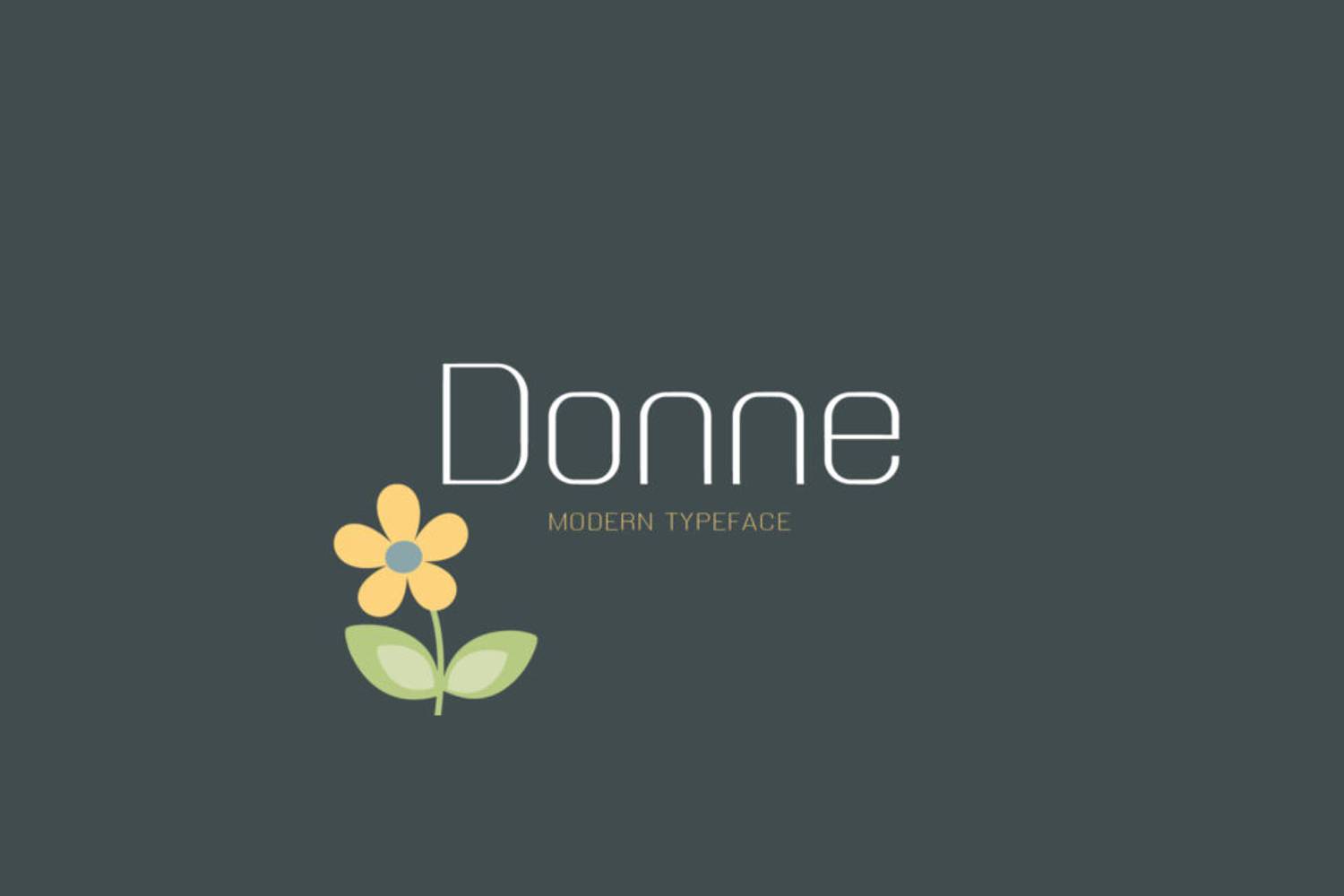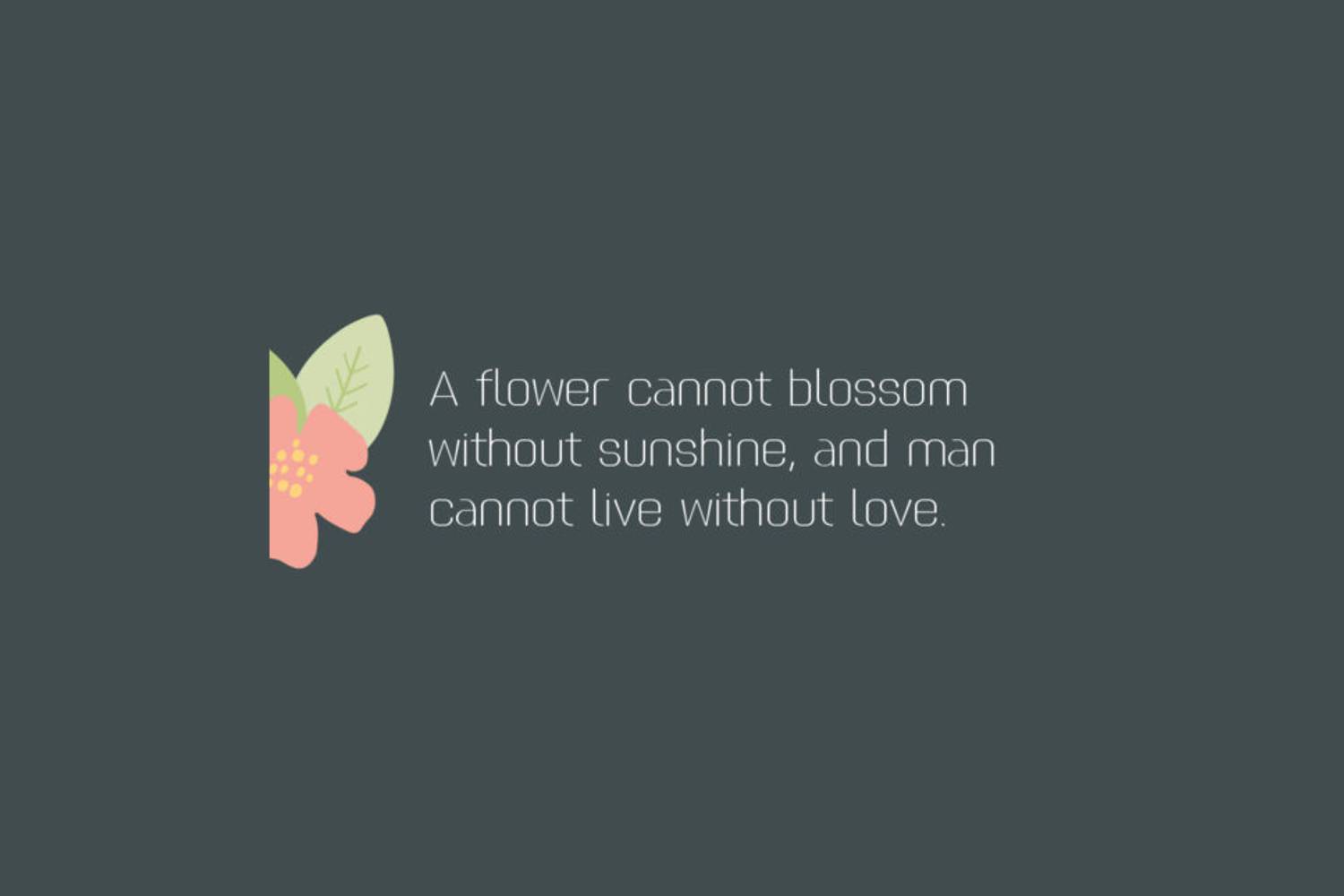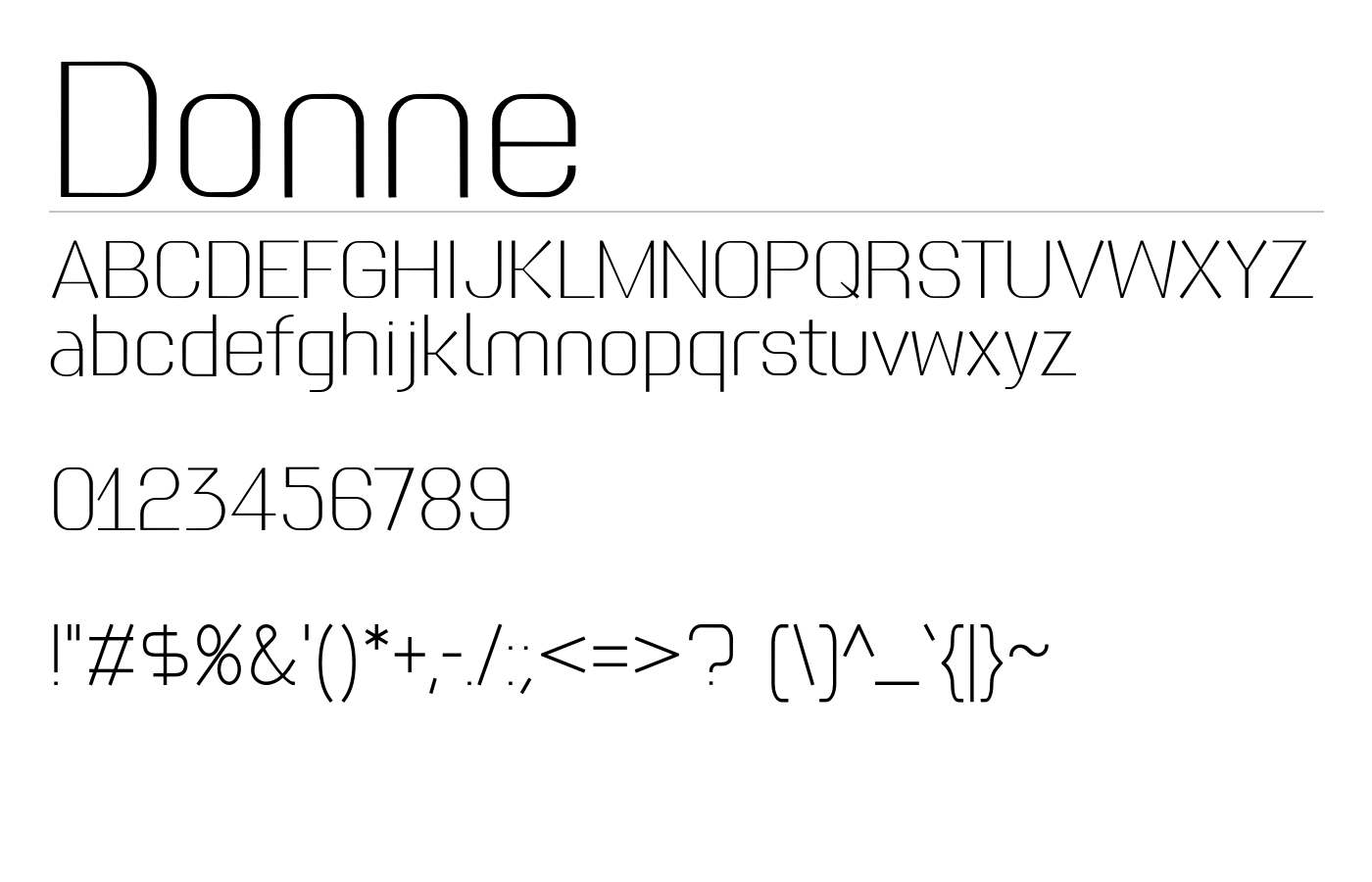
Donne is a sleek, modern sans serif font characterized by its thin, geometric lines and tall, narrow letterforms, creating a clean and elegant look. Its monolinear strokes and minimalist design make it ideal for contemporary branding, editorial headlines, and tech-focused projects where clarity and sophistication are key. This font’s refined, airy feel lends itself well to stylish logos and digital interfaces that demand a subtle yet distinct presence.
Donne Font
About Donne Font